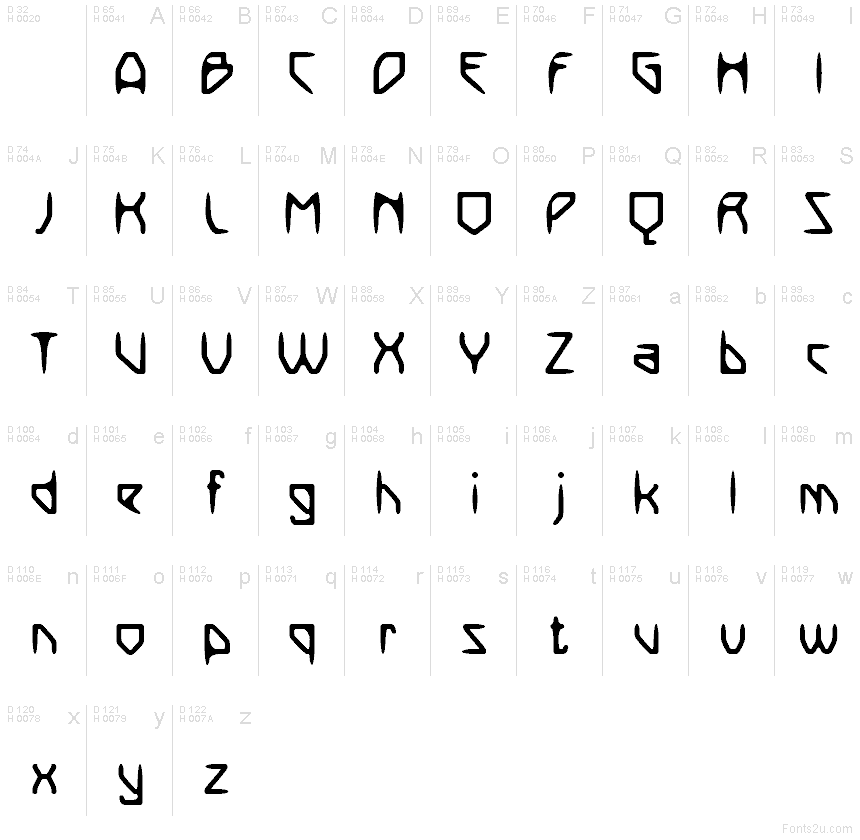
CSAzureDrawn-Regular Demo
CS Azure font is a free display font designed by Craft Supply Co. with abstract geometric characters. The avant-garde and futuristic appearance of this typeface gives it a uniquely modern aesthetic that will stand out in creative projects.
Use CS Azure for digital businesses, gaming, or technology sectors; applications include logos and branding material, packaging designs, (business) cards and stationery, T-shirt designs, titles and headlines. Other fields might include digital content posts on social media platforms as well as website design.
CS Azure Drawn Demo